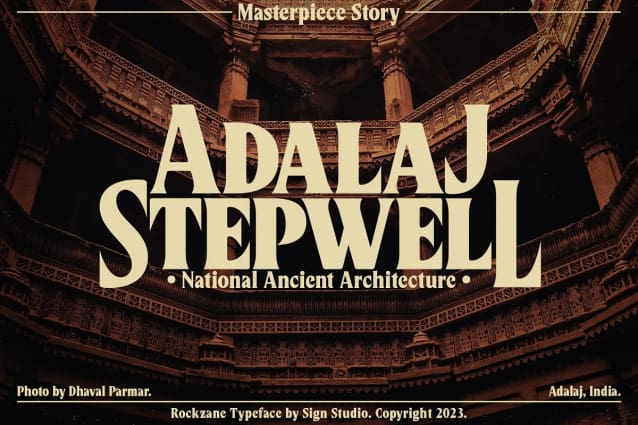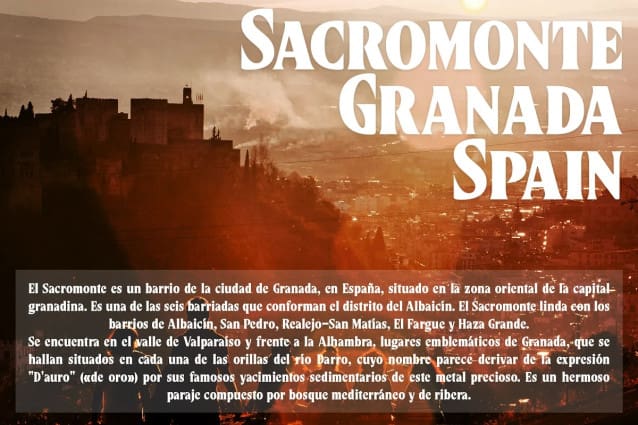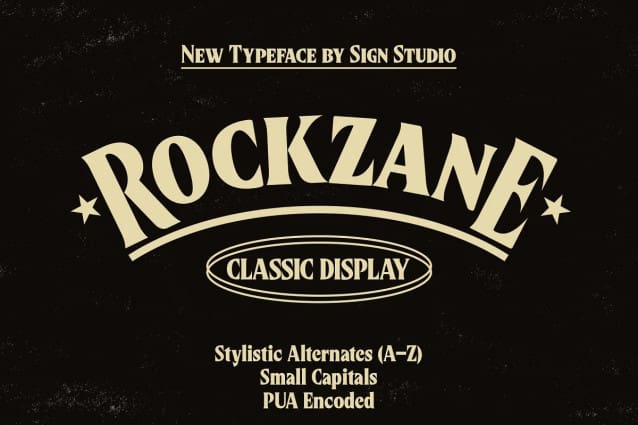
Rockzane Font
Rockzane Font is a classic stylish font inspired by basic concept of bold serif letters. It looks amazing at display sizes and is easily readable in text size. Rockzane comes with OpenType features, stylistic alternate character for uppercase (A-Z) and Small Caps. This is a display font made mainly for headlines, branding, logotypes, titles, and other short texts and is well-suited for advertising, packaging, titles, editorial design and classic style design.